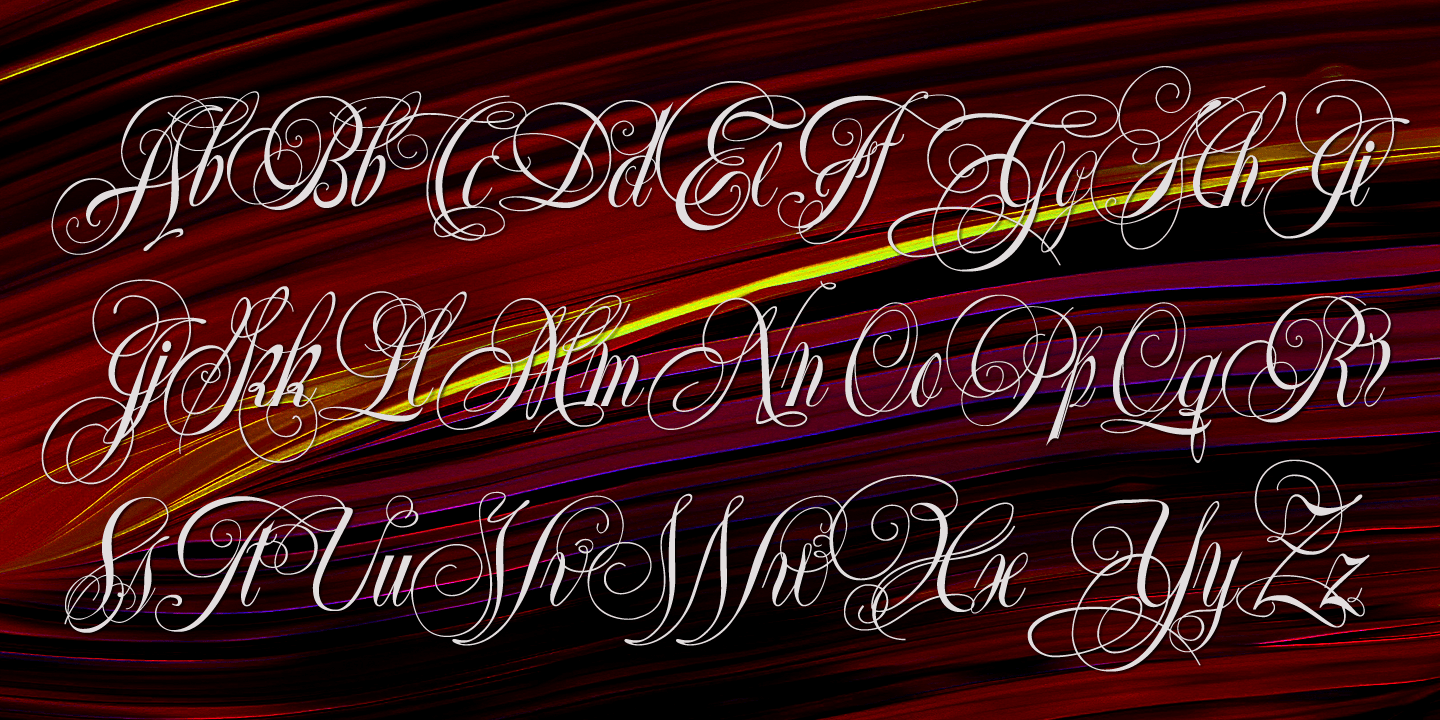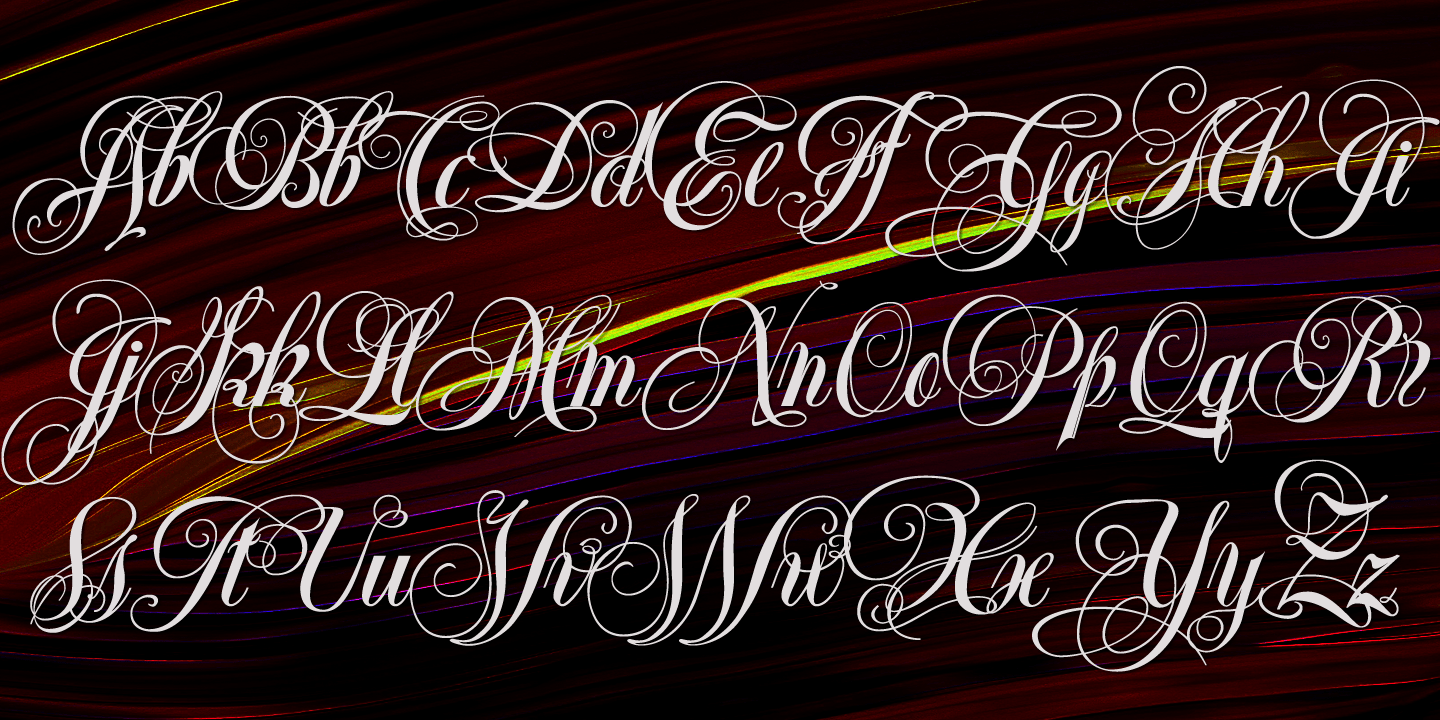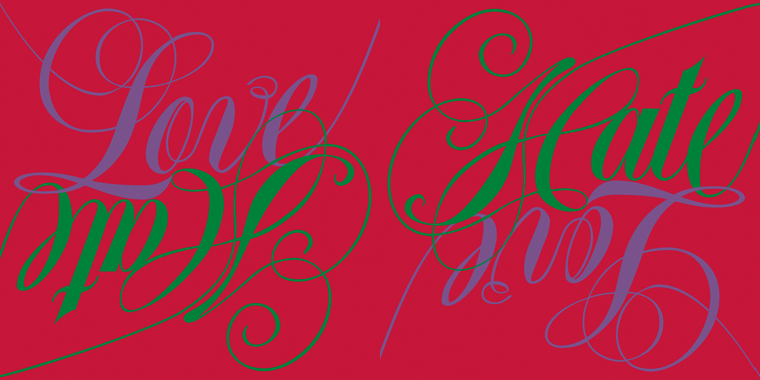
Ellida
Font Family by Wiescher Design
Ellida is a very elaborate and elegant script in the tradition of the 18th-century English calligrapher George Bickham and the 19th-century American calligrapher Platt Rogers Spencer.
I really enjoyed designing this script and maybe one day I will add starting and ending letters. Doing this script was extremely time- and brain-consuming, it is a huge challenge to make calligraphic letters work on computers so that they join perfectly.